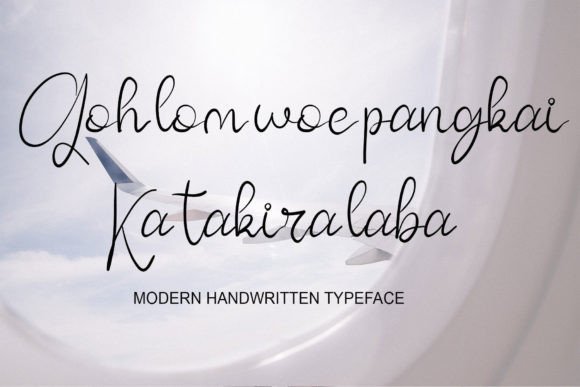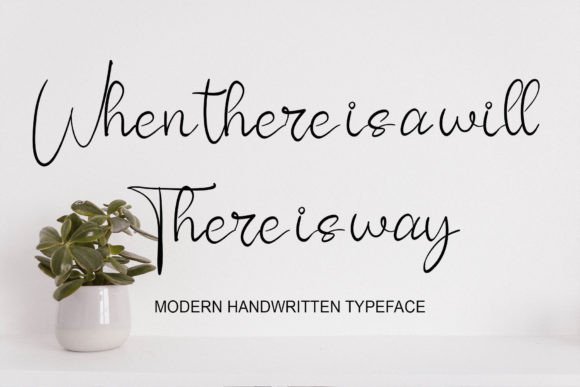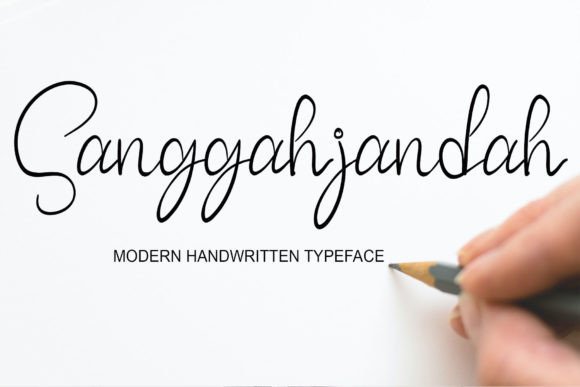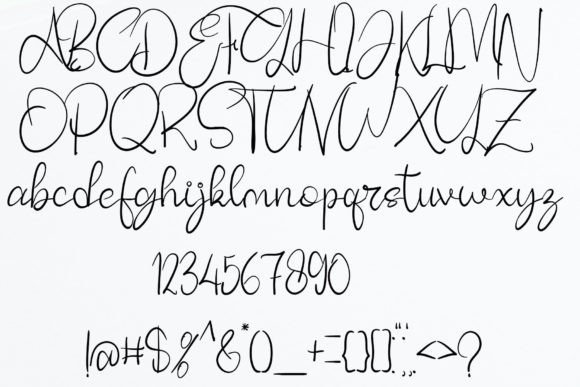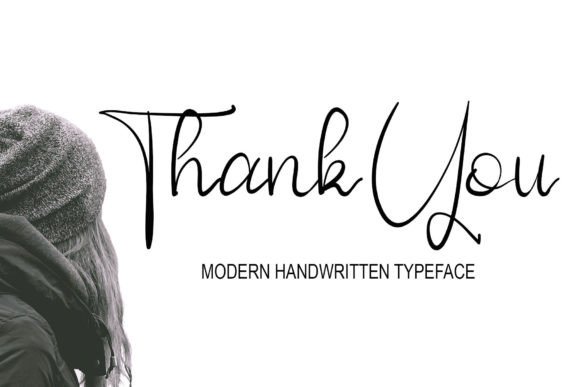
The Perfect Script Font for Timeless Designs
There’s something magical about discovering a new font that perfectly captures the essence of your creative vision. It’s like stumbling upon a hidden treasure that elevates your project to the next level. For designers, the search for the perfect font can be a thrilling adventure. And today, we’re excited to introduce you to the Bangkebui Font, a stunning script font that’s sure to become your new favorite.
Designed to evoke the elegance of timeless classic calligraphy, the Bangkebui Font is the perfect choice for designers seeking a contemporary atmosphere without sacrificing impeccable form. With its balanced and varied strokes, this font is not too thin and not too thick, making it a versatile addition to any project. Whether you’re working on a luxury brand, a wedding invitation, or a creative campaign, the Bangkebui Font is sure to enhance the beauty of your designs.
- Unique Characteristic: Distinctive, modern script-like design with a mix of traditional and contemporary elements
Bangkebui Font Review
Overall, I think Bangkebui Font is a unique and quirky addition to any design project. ✨ The font’s bold and playful style can add a lot of character to headings, titles, and even body text. It’s perfect for designers looking to create a fun and lighthearted atmosphere.
- ✨ Unique style: Bangkebui Font has a distinctive look that can help your design stand out.
- ✨ Versatile: The font can be used in a variety of contexts, from headings to body text.
- ✨ High-quality: The font is well-designed and looks great at a range of font sizes.
- ⚠️ Limited language support: Bangkebui Font may not have full support for non-Latin scripts, which could be a problem for designers working with multiple languages.
- ⚠️ Limited stylistic variations: While the font has a bold and playful style, it may not offer as many stylistic variations as some other fonts.
Overall, I think Bangkebui Font is a great choice for designers who want to add a bit of whimsy to their projects. While it may have some limitations, the font’s unique style and versatility make it a valuable addition to any design toolbox.
The Bangkebui Font is commonly used in:
- Graphic design and branding.
- Typography and lettering art.
- Logo design and identity systems.